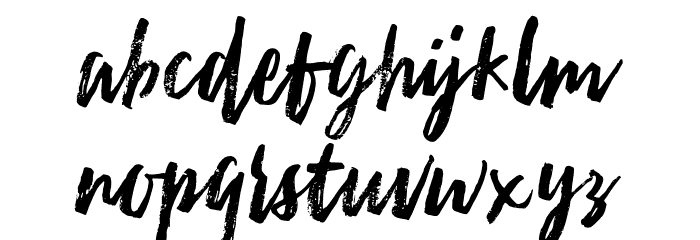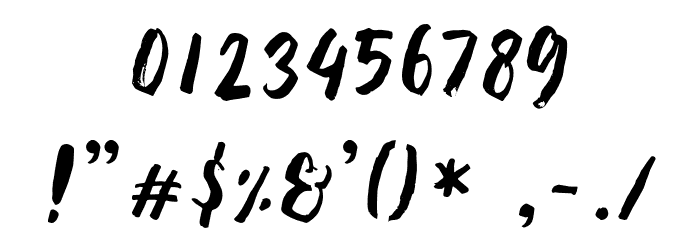
AmpleScript-Regular Font
This font features a dynamic and expressive script style, characterized by its bold, brush-like strokes that convey a sense of energy and movement. The letters are slightly irregular, adding a handcrafted feel that enhances its artistic appeal. The uppercase letters are bold and prominent, while the lowercase letters maintain a fluid and connected appearance, typical of script fonts. The numbers and special characters follow the same stylistic approach, ensuring consistency across all elements. This font's unique style makes it suitable for creative and artistic projects.
A bold, brush-style script font with dynamic and expressive strokes.
- Font: AmpleScript-Regular
- Proposed Projects: Ideal for branding, packaging, invitations, and artistic posters.
- Category: Script
- Use Case: Logos, Headlines, Artistic projects